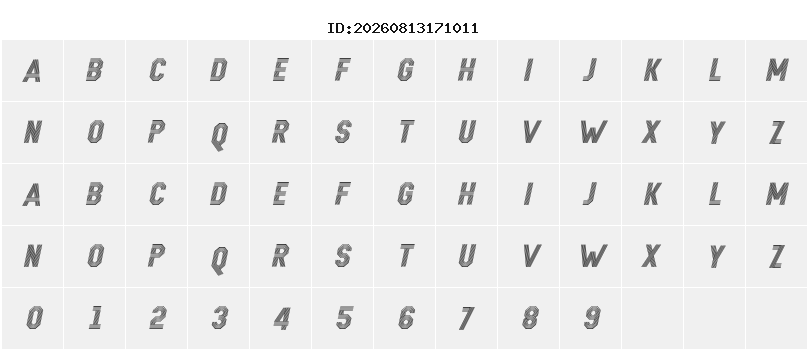
• Font Name: REMPONK
• Full Font Name: REMPONK Italic
• Designer: Situjuh Nazara
About REMPONK.otf
REMPONK.otf is a modern, elegant sans-serif font designed for ultimate readability and visual harmony. Perfect for branding, headlines, web design, and print materials.